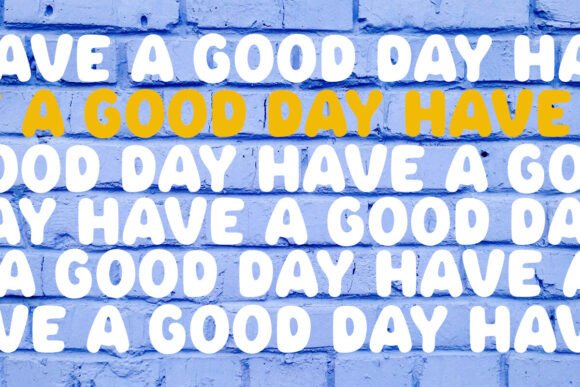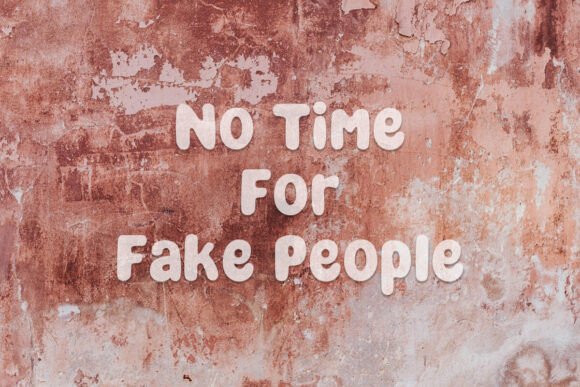
Bohlam Font
Discover the playful charm of the Bohlam font, presenting a unique hand-crafted bubble style with sleek, soft edges. Its organic aesthetic is sure to infuse your designs with a distinctively human feel, ensuring they stand out while retaining a warm, familiar touch. The Bohlam font enlivens a wide variety of designs, from posters and stickers to quotable moments or even distinctive branding elements. Featuring unique variants in both lowercase and uppercase, you can mix and match them within a single word, adding an authentic, handmade effect to your projects. Distinguish your work further with the Bohlam font’s array of alternates available for use. The package also contains exclusive icons and underlinings, readily accessible from your design software’s glyph panel. Moreover, the Bohlam font embraces linguistic diversity, offering support for multiple languages to meet your global design needs.